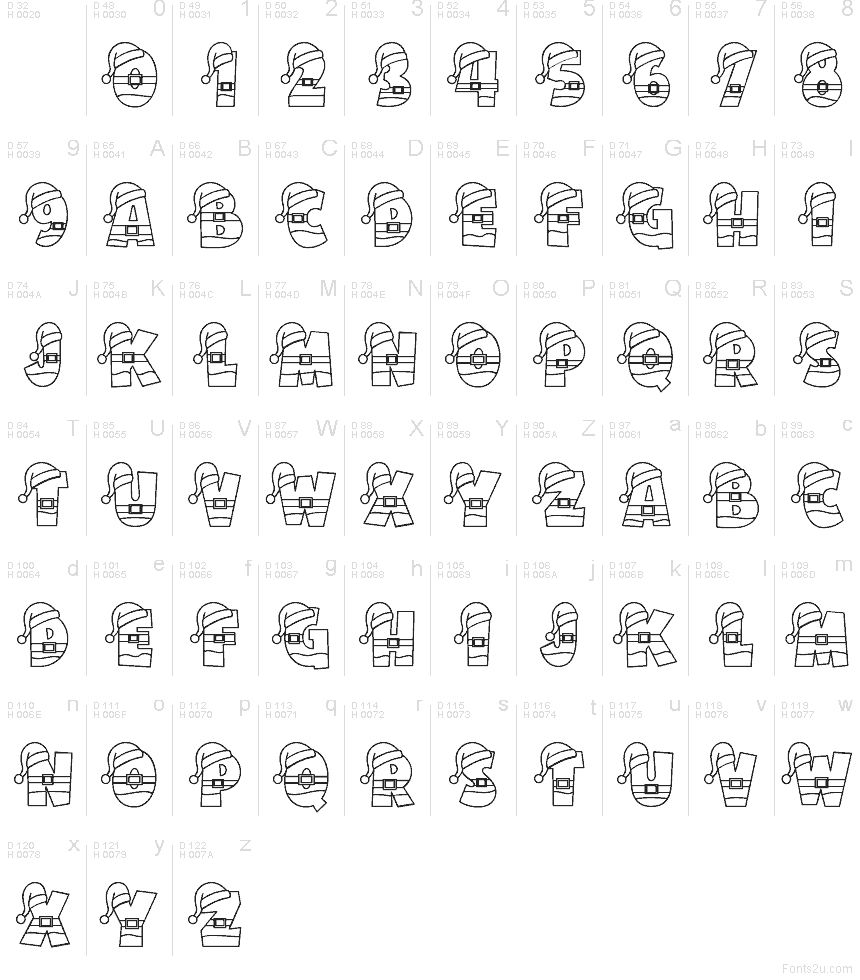
Santa Christmas
Santa Christmas font by Keithzo is a free holiday decorative typeface that turns every word into a row of tiny Santas. Bold, rounded letters wear fluffy hats, striped outfits, and friendly faces, with clean outlines that beg to be colored in. The strokes are thick and even, so the characters stay legible even when scaled up on posters or printed on low-quality holiday paper.
Using Santa Christmas, your titles instantly feel like a cozy kids’ book cover or a playful gift tag. This free font shines on coloring pages, classroom handouts, children’s party invitations, Christmas cards, social media graphics, and printable stickers. Pair it with a simple sans serif for body text, and let Santa Christmas handle the big, joyful headlines.